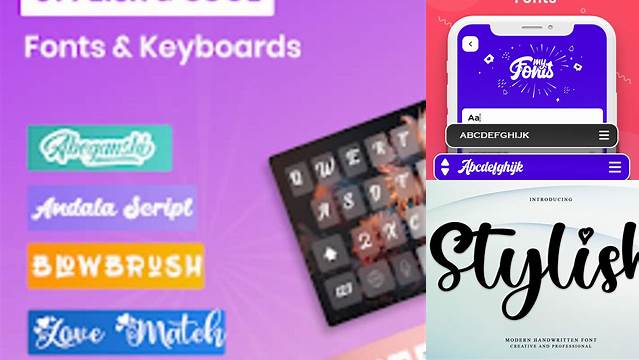
Get Stylish Fonts & Themes: Free Downloads Await!
Hey guys, are you looking to spice up your designs and make them pop? Well, you're in the right place! We're diving deep into the world of stylish themes fonts free download, exploring everything from elegant fonts to eye-catching themes, all available without spending a dime. Get ready to revamp your projects with a fresh, new look! Whether you're a seasoned designer or just starting out, having access to awesome fonts and themes is a game-changer. They can instantly elevate your work, making it more professional, engaging, and, let's be honest, way more fun. We'll cover where to find these treasures, how to use them, and some cool tips and tricks to make the most of your stylish themes fonts free download finds. So, buckle up, and let's get started on this exciting journey to transform your creative projects with a touch of style and flair. Don't worry; we'll break it down step by step, so everyone can join in on the fun. Let's make your designs the talk of the town! Keep in mind that using the right font and theme can make a huge difference in how your audience perceives your work. A well-chosen font can convey your message clearly and stylishly, while a great theme can help you create a cohesive and visually appealing design. Finding the perfect stylish themes fonts free download can seem overwhelming at first, but it's a rewarding process. You'll be amazed at the options available and the impact they can have on your creative output. We will explore the different types of fonts, where to find them, and the best themes for various design projects. Plus, we'll discuss how to use these resources effectively to achieve the desired results. So, get ready to download some awesome fonts and themes, unleash your creativity, and start creating stunning designs. Remember, the key is to experiment, have fun, and find what works best for you. Let your imagination run wild, and don't be afraid to try new things. The world of stylish themes fonts free download is vast and exciting, and there's something for everyone. So let's begin and transform your projects into something truly spectacular. You won't regret it. Let's get started!
H2: Exploring Free Font Styles for Your Designs
Alright, let's dive into the amazing world of free font styles! Discovering the perfect font can be like finding a hidden gem. It can transform a plain design into something truly special. Today, we're talking about how to find the stylish themes fonts free download that fit your needs perfectly. Different font styles have different personalities. Some are elegant and sophisticated, while others are playful and modern. Your choice should match the tone and message of your project. For example, a formal invitation might call for a classic serif font, while a fun, colorful website could benefit from a quirky, sans-serif font. The great thing is, there are tons of free font styles available for download online. Many websites offer an extensive collection of fonts, making it easy to find something that suits your style. Popular options include sites like Google Fonts, Font Squirrel, and DaFont. These platforms offer a wide variety of fonts, so you can easily find something that matches your project. The key is to browse and experiment. Try out different fonts to see how they look in your design. Don't be afraid to try something new. Using the right font is essential to your designs, especially with stylish themes fonts free download. Fonts can significantly impact your design's overall look and feel. Consider the design you're working on, and choose the font accordingly. Remember to check the licensing of each font. While most free fonts are available for personal use, some may have restrictions for commercial projects. Read the fine print to avoid any issues down the line. The possibilities are endless, so have fun and let your creativity guide you. The journey to finding the perfect font style is all about exploration. Play around with different fonts. Combine different fonts, and see what works best for your projects. Before you know it, you'll be a font master, creating stunning designs with ease. You'll be able to create designs that are both visually appealing and effectively communicate your message. This step will make your designs shine. Take your time and let the journey to finding the perfect font begin!
H2: Finding Free Themes for Website Design and More
Let's switch gears and explore the world of free themes. A theme is a pre-designed template that provides a complete layout for your website, blog, or other projects. With stylish themes fonts free download, you can customize your design without starting from scratch. They can save you a ton of time and effort. There are countless free themes available for various platforms, including WordPress, Shopify, and more. These themes often come with pre-designed layouts, color schemes, and features, making it easy to create a professional-looking website or project. Using a free theme lets you quickly set up a website without needing coding or design skills. Look for reputable theme providers like WordPress.org, ThemeForest, and TemplateMonster. These platforms offer a wide variety of free themes. Make sure to choose a theme that's responsive, meaning it looks good on all devices, from desktops to smartphones. Responsive designs are a must. Check out the theme's reviews and ratings. Look at the demos of the themes you're considering to see how they will look in action. This will help you find a theme that suits your design. Remember, even with stylish themes fonts free download, customization is key. Most free themes allow you to adjust colors, fonts, and layouts to match your brand or personal style. Take advantage of these options to make the theme uniquely yours. Also, check for updates and support. Make sure the theme is well-maintained and has a support team in case you have any issues. Also, if you need to improve your designs, find a theme that suits your needs. Free themes are an amazing resource. They give you the building blocks to start your design. With a little creativity and customization, you can create amazing projects. Be sure to make the theme reflect your brand!
H3: Choosing the Right Font for Different Design Projects
Choosing the right font can make or break a design. That's why it's important to understand the different types of fonts and how they can be used. With your collection of stylish themes fonts free download, you can choose the best fonts. Here's a quick guide to help you find the perfect font for your design: Serif fonts are classic and elegant, with small strokes at the end of each letter. They're great for body text in printed materials, like books and magazines, as they're easy to read. Sans-serif fonts are modern and clean, without the strokes. They're perfect for headings, websites, and modern designs. They are easy to read on screens. Display fonts are decorative and stylish, designed for headlines, logos, and special effects. They are not suitable for large blocks of text. Script fonts mimic handwriting, giving a personal and creative touch. They're perfect for invitations, logos, and branding projects. When selecting a font, consider your project's purpose, the target audience, and the overall tone you want to convey. Formal projects require classic fonts, and friendly projects need modern fonts. Remember, the readability of your design is key. Make sure the font is legible, especially when used in body text. Use different fonts for headings, subheadings, and body text. The choice of fonts depends on your design. With your stylish themes fonts free download, you'll find a lot of variations. You'll be happy with the results. This approach will ensure your designs are both stylish and effective. Take your time to browse. The best font for the job is out there!
H3: Customizing Fonts and Themes for a Unique Look
Alright, let's talk about how to make your stylish themes fonts free download truly your own. Customizing fonts and themes is an awesome way to make your designs stand out. You don't want to look like everyone else, right? So, here's how you do it: First off, when it comes to fonts, you can change the size, color, and spacing. These small changes can make a big difference. Combine different fonts to create a unique look. Pair a bold headline font with a clear, readable body font. To change a theme, start by adjusting the color scheme. Make sure the colors match your brand and create the desired mood. You can also add or remove sections. Tailor the layout to fit your content. This gives the theme a unique identity. Customize the typography. Experiment with different font sizes and styles. This allows you to create a more cohesive look. Make sure you customize the theme for your website. Using a custom theme helps you create designs that are both stylish and unique. The possibilities are endless! Remember, the goal is to create a cohesive design. Don't be afraid to experiment with different customization options. So go get your stylish themes fonts free download and play around. Make it look uniquely you! With a bit of creativity, your designs will look fantastic. Make sure your designs shine!
H3: Best Practices for Using Free Fonts in Your Designs
Now that you've got your hands on those stylish themes fonts free download, let's talk about the best ways to use them. First, always prioritize readability. Your font should be easy to read, no matter the size or context. Make sure the font is clear, especially in the body text. Don't be afraid to experiment with different fonts. Try different sizes, styles, and weights to see what looks best. The use of a font should suit your design. Less is often more when it comes to fonts. Don't use too many different fonts in one design. Stick to a maximum of two or three fonts to create a cohesive look. Consider the kerning and tracking. Kerning is the space between individual letters, and tracking is the space between all the letters in a word. Adjust these settings to improve readability. Don't forget about line height. This refers to the space between each line of text. Make sure there's enough space between lines to make the text easy to read. You'll want to make sure your designs are awesome. So, use the best fonts to make your design shine. The key is to practice. With the right fonts and the right techniques, you can make your designs sing. So, take your stylish themes fonts free download and let your creativity flow! You're on your way to making amazing designs!
H3: How to Find and Install Free Themes Easily
Alright, let's get practical and talk about finding and installing free themes! It's easier than you might think, and with those stylish themes fonts free download, you can make your designs sing! The first step is to find a reputable theme provider. Popular options include WordPress.org, ThemeForest, and TemplateMonster. These platforms offer a wide variety of free themes. Browse the theme library. Look for themes that match your project. Always check the theme's preview. This lets you see how the theme looks. When you have found a theme you like, download it. After you have downloaded your chosen theme, the next step is to install it. For WordPress, you can install the theme directly from the WordPress dashboard. Simply go to the